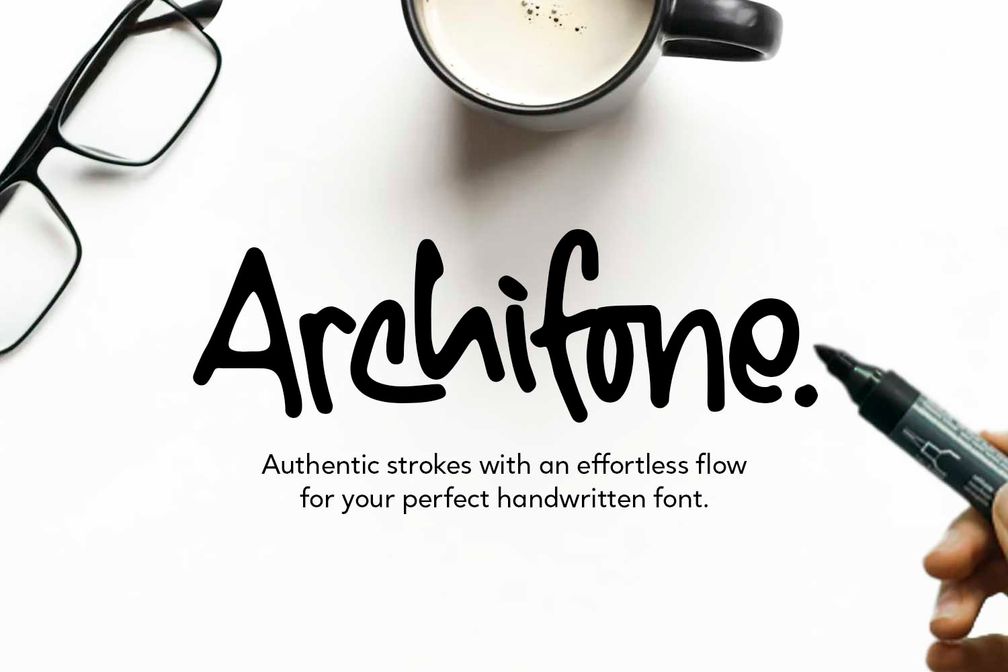
Archifone
Archifone is a handwritten font that blends a casual style with a touch of elegance. With its natural strokes and smooth flow, this font is designed to bring warmth, personality, and authenticity to your work. It’s a great fit for various design needs, from branding and logos to inspirational quotes, social media elements, and product packaging.
Key Features:
- Natural Handwriting: Every character flows organically, as if written by hand.
- Versatile Use: Perfect for logos, branding, packaging, quotes, invitations, and other creative projects.
- Ligatures & Alternates: Adds variety to letterforms for a more dynamic and unique look.
- Multilingual Support: Includes a range of accents and characters for global design needs.
- Casual & Stylish Feel: Strikes the right balance between relaxed and professional aesthetics.
Bring a personal touch to your designs with Archifone, a handwritten font full of character and expression!